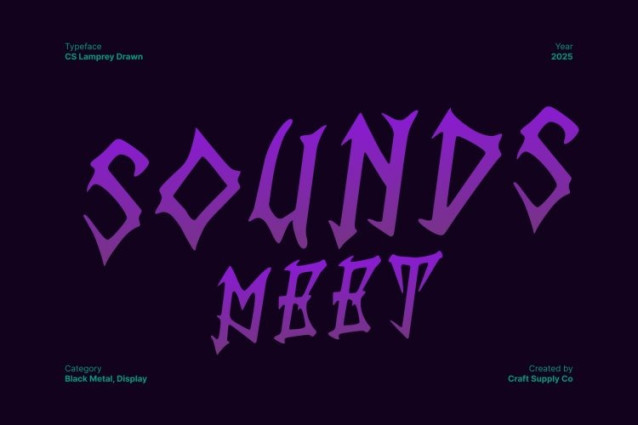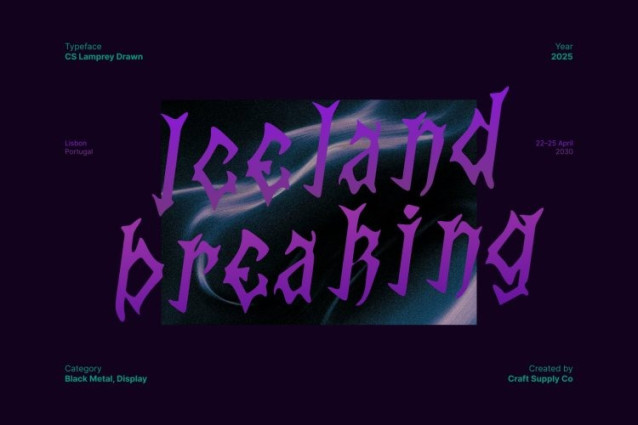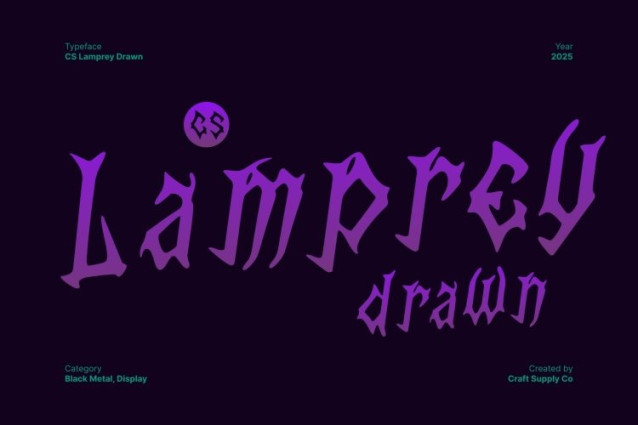
CS Lamprey Drawn Font
CS Lamprey Drawn Font This is a black metal display font crafted for designers who want to inject raw power and chaotic expression into their visuals. Featuring razor-sharp spikes, distorted forms, and violently hand-drawn strokes, this font radiates darkness from the very first glance.
Chaotic Strokes That Bring Darkness to Life
The drawn effect reinforces its brutal aesthetic, adding a textured, handmade quality that enhances its raw personality. Instead of polished curves, this font embraces fractured edges and irregular outlines, giving your designs an organic distortion that feels alive. This chaotic execution captures the true essence of black metal artwork unrefined, expressive, and unapologetically extreme.
Perfect for Logos, Posters, and Edgy Visual Themes
Designed for maximum impact, this font excels in loud, rebellious projects that require a visual punch. Use it for band logos, festival posters, album artwork, streetwear branding, or any creative work that thrives in the darker spectrum of aesthetics. Its sharp structure and high-contrast shapes ensure it remains striking even at large display sizes.
A Typeface for Designers Who Dare to Go Darker
This font isn’t just a font it’s an artistic statement. Whether you’re crafting visuals for metal bands or designing bold experimental artwork, this typeface empowers you to push boundaries.